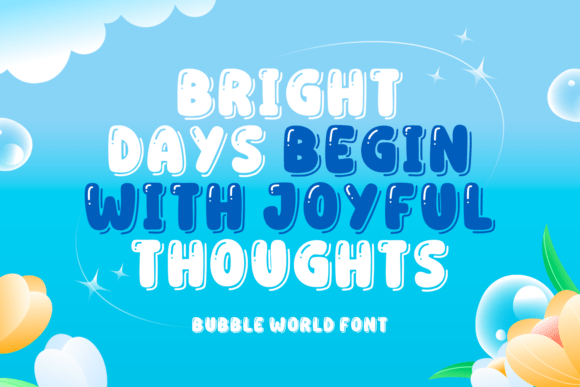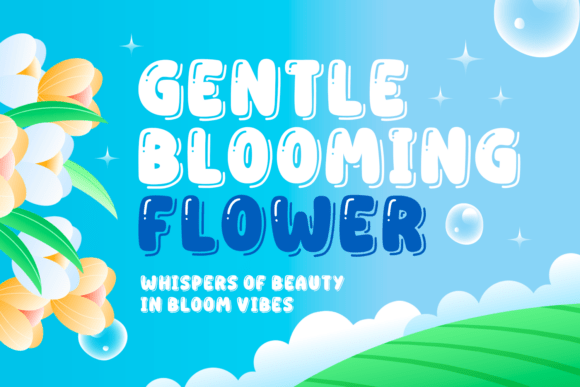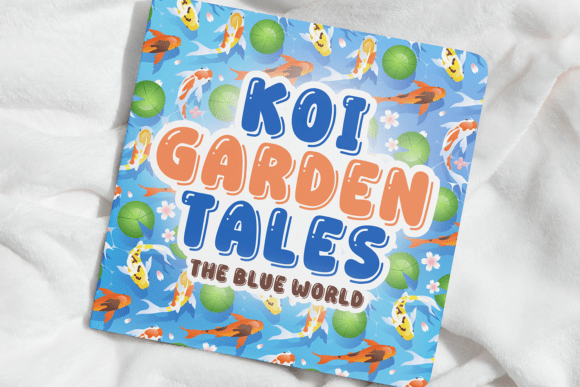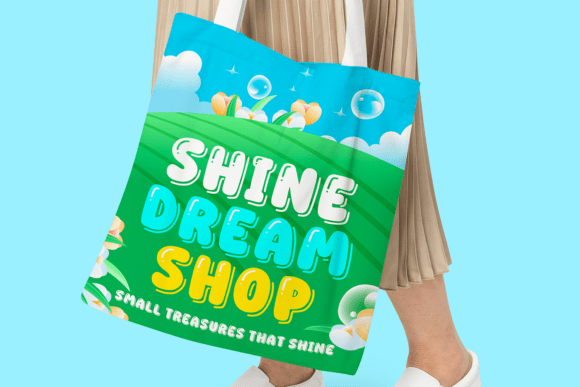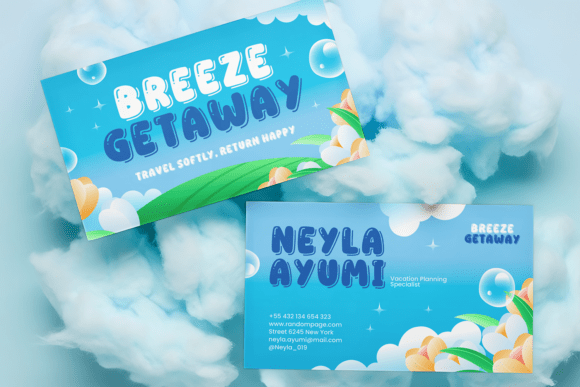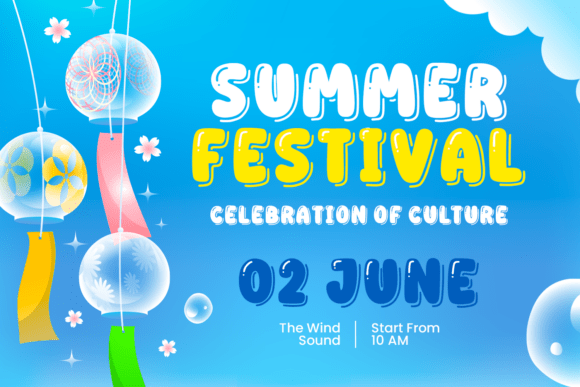
Discover the Joy of Bubble World Font: A Playful Display Font for Creative Projects
Have you ever been in the middle of a design project, and suddenly, you just can’t seem to find the right font? I recall a particularly frustrating moment when I was working on a children’s birthday invitation project. My client wanted a font that was fun, cheerful, and approachable, but everything I tried seemed either too boring or too overwhelming. That’s when I stumbled upon the delightful Bubble World Font! ✨
Inspired by soft, rounded bubble shapes, Bubble World instantly brings joy and imagination to any design. Its cute and friendly appearance makes it perfect for children’s themes and projects that need a playful vibe. Every letter feels lively and bouncy, making your text stand out with a smile.
• ✨ Playful and cheerful design: Bubble World is perfect for kids-related designs, birthday invitations, party decorations, and Easter projects.
• ✅ Highly versatile: This font works beautifully for greeting cards, posters, and playful headlines that aim to capture attention and spread positivity.
• 💡 Clear readability: Even with its decorative touch, Bubble World maintains clear readability, making it ideal for various design projects.
• 🎨 Creative crafting needs: It’s perfect for Cricut projects, embroidery, DIY crafts, SVG files, handmade gifts, or custom merchandise.
⚠️ While Bubble World is an amazing font, it’s essential to note that it might not be the best choice for very formal or professional projects. Its playful nature might not fit the tone you’re aiming for in those cases. 🤔 Additionally, some of the more intricate details might not display as clearly at very small font sizes.
3. Experiment with OpenType features and glyphs to add more variety to your text. For example, you can use the stylistic alternates feature to swap out letters for more decorative versions.
The creator of Bubble World Font was inspired by the simple joys of childhood: blowing bubbles and watching them float through the air. The designer wanted to capture that sense of wonder and playfulness in a font that would bring happiness to anyone who used it. With Bubble World, you can add a touch of that childhood magic to your designs.
Q: Is Bubble World Font available in different weights or styles?
A: While Bubble World Font is primarily available in one style, its versatility and playful design make it easy to use in a variety of contexts. You can experiment with different font sizes, colors, and effects to achieve the desired look.